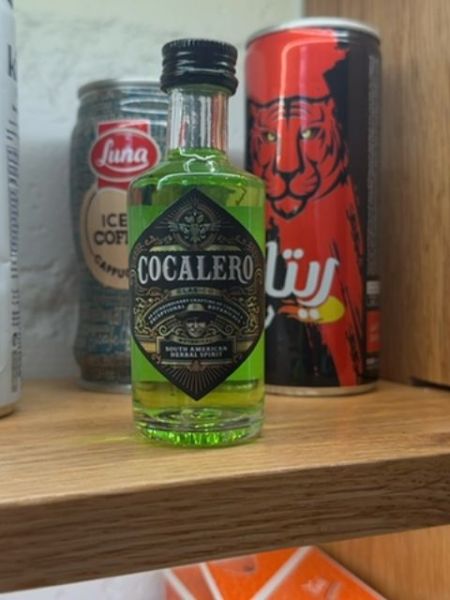
Cocalero
Cocalero is a herbal spirit made with coca leaves and botanicals. It is often consumed as a liqueur or in cocktails, known for its unique green color and herbal flavor.
The typography on the Cocalero label uses a bold serif font that communicates a sense of tradition and authenticity. The font has a strong presence on the label, balanced by ornamental flourishes that add an element of sophistication. The use of white text against a dark background ensures high readability and contrast.
The packaging features a small, transparent glass bottle showcasing the vivid green color of the spirit. There is an ornate label with intricate designs and a dark color palette that stands out against the green liquid, giving it an elegant and sophisticated look.
- Cocalero is infused with coca leaf, along with other botanicals.
- It is often used in cocktails due to its unique taste.
- The spirit is known for its vibrant green hue.